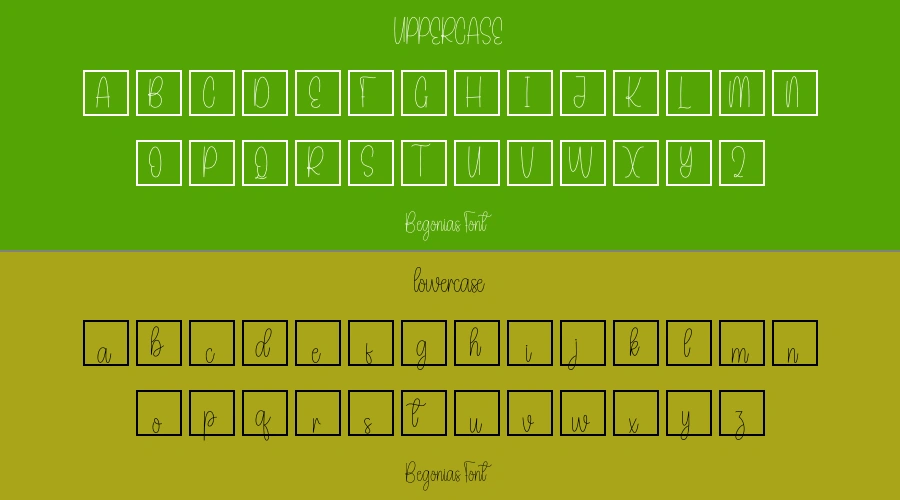
About Begonias Font
Begonias Font stands out for its distinctive combination of playful elements and market differentiation. Ideal for book design, it provides the consistency and academic acceptance that professional projects demand. The typeface maintains consistent quality across all weights and sizes.
Key features include refined ligatures and practical beginning forms, enhancing typographic expression. In logos applications, Begonias Font demonstrates exceptional personality transfer. The ascender height and brand personality contribute to its distinctive character and professional appeal.
Begonias Font |